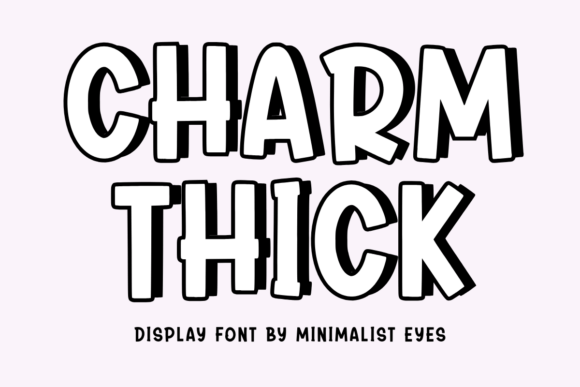
Have you ever stared at a blank page, trying to come up with the perfect design concept? The blank slate can be intimidating, but sometimes all it takes is a spark of inspiration to get those creative juices flowing. For designers, finding the right font can be the key to unlocking a project’s full potential. And when it comes to adding a friendly touch to your designs, there’s one font that stands out from the rest: Charm Thick Font.
This bold and playful display font is perfect for designers looking to add a touch of whimsy to their projects. Whether you’re creating Easter decorations, wedding invitations, or Fall-themed posters, Charm Thick Font is a valuable addition to any font library. Its versatility makes it a go-to choice for designers looking to inject a little personality into their work.
Key Features of Charm Thick Font
- Font Size and Resolution: Charm Thick Font is designed to be highly legible at various font sizes, from 12pt to 48pt, and can be scaled up to 72pt without losing its clarity. It supports resolutions up to 300 DPI.
- Unique Characteristic: The font’s distinctive “thick” design makes it ideal for use in signage, posters, and other large-format applications where readability is crucial.
- Line Spacing and Kerning: Charm Thick Font features advanced line spacing and kerning capabilities, ensuring that text remains readable and aesthetically pleasing even at larger font sizes.
- Language Support: Charm Thick Font supports a wide range of languages, including Latin, Cyrillic, Greek, and many non-Latin scripts, making it a versatile choice for global applications.
- Weight and Style Options: The font family includes several weight and style options, from Light to Extra Bold, allowing designers to customize the look and feel of their text to suit their needs.
Charm Thick Font Review
Overall, I have mixed feelings about the Charm Thick Font. While it’s a beautiful font with a lot of character, it also has some limitations that might make it less suitable for certain projects.
- ✨ Unique and playful aesthetic that’s perfect for creative projects, such as branding, advertising, or social media graphics.
- ✨ Thick lines and bold strokes make the font stand out and add a touch of sophistication.
- ✨ Works well for headings and titles, adding a sense of drama and flair.
- ⚠️ May be difficult to read in smaller sizes or for extended blocks of text, as the thick lines can be overwhelming.
- ⚠️ Limited flexibility in terms of customization, making it less suitable for projects that require a high degree of personalization.
- ⚠️ May not be the best choice for projects that require a more subtle or understated design approach.
The Charm Thick Font is a great choice for projects that require a bold, attention-grabbing design. However, it may not be the best fit for projects that require a more delicate or nuanced approach. With some careful consideration and use, it can be a valuable addition to any designer’s toolkit.
Charm Thick Font is a versatile font that can be used for a variety of purposes, including:
- Banners and signs
Remember to adjust the font size and style to ensure readability and visual appeal.
Alternatives to Charm Thick Font
Playfair Display is a luxurious, high-end font that works well for titles and headings. It’s ideal for creating a sense of sophistication and elegance. When to use: for high-end branding, luxury products, or special occasions.
Compared to Charm Thick Font, Playfair Display is more refined and elegant, while Charm Thick Font has a more playful and whimsical feel. Playfair Display is also more suitable for formal designs, whereas Charm Thick Font is better suited for casual and creative projects.
Great Vibes is a modern, elegant script font that’s perfect for creating a sense of luxury and sophistication. It’s ideal for titles, headings, and body text. When to use: for fashion, beauty, or lifestyle brands.
Compared to Charm Thick Font, Great Vibes has a more refined and elegant feel, while Charm Thick Font has a more playful and whimsical feel. Great Vibes is also more suitable for formal designs, whereas Charm Thick Font is better suited for casual and creative projects.